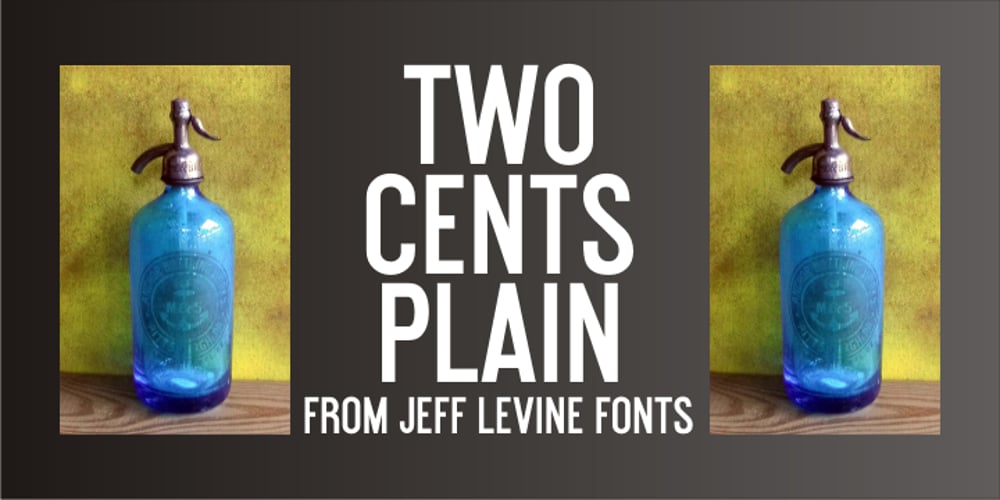
Two Cents Plain JNL Font Family was designed by Jeff Levine and published by Jeff Levine. Two Cents Plain JNL contains 1 styles and family package options. Two Cents Plain JNL is a simple sans design for titling, sign work, display ads and so forth. The name is derived from the way folks in the Northeast used to ask for a glass of seltzer water at restaurants and soda fountains decades ago: “Give me a two cents plain.” It was always cheaper to order plain seltzer than to have flavored syrup added, and this was especially true in the years during the Great Depression when every penny made a difference.